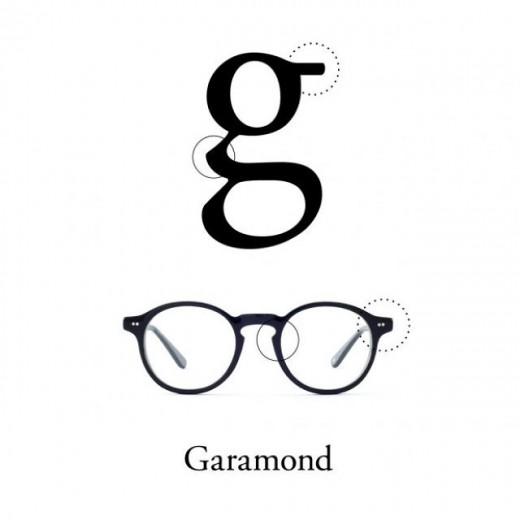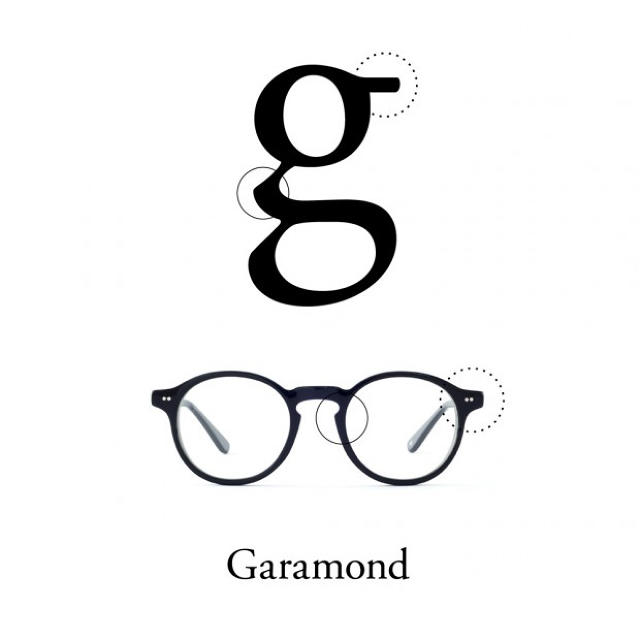
Any able print dressmaker can identify a typeface at a glance. however can they identify a typeface hidden in a pair of eyewear? That’s the question.
as a result of a new assortment of glasses via ad company Wieden+Kennedy’s Tokyo arm and retailer Oh My Glasses turns Eurostile, Optima, Friz Quadrata and Serif Gothic typefaces into wearable frames. Even higher—and this is the perfect type of advertising and marketing cheese—they may be available in light, common, and daring. the gathering is a variety on the Helvetica, Garamond, and different frames launched last yr.
What’s so impressive in regards to the assortment, then again, isn’t just its irresistibly suave nomenclature. Many elements of the designs are in truth lifted from features hiding in each typeface. The link of a decrease case “g” makes its approach into the Garamond nosepiece perfectly.
In different instances, it seems that the glasses are more loosely inspired by means of the tone of every typeface. Optima feels adore it suits the vibe completely, even though i will’t figure the true palms or stems of the letters enjoying out within the frames. however the Eurostile glasses, feel like slightly of a leave out. They lack the long-lasting, curved rectangular symmetry of the typeface’s O, Q, and S glyphs—which would make for a extra aggressive, chunky pair of glasses (one thing more alongside the strains of these). Even nonetheless, i guess saying that you personal a pair of Eurostiles remains to be more interesting than admitting you simply offered the latest free up from Warby Parker.